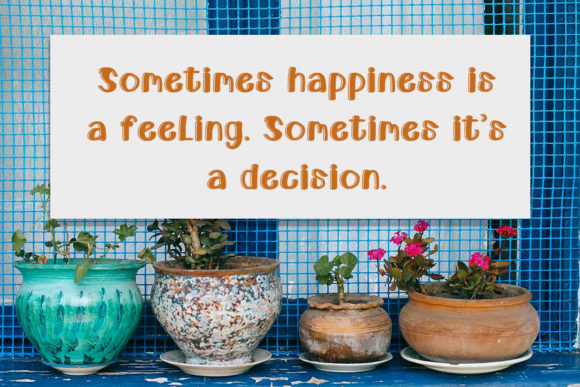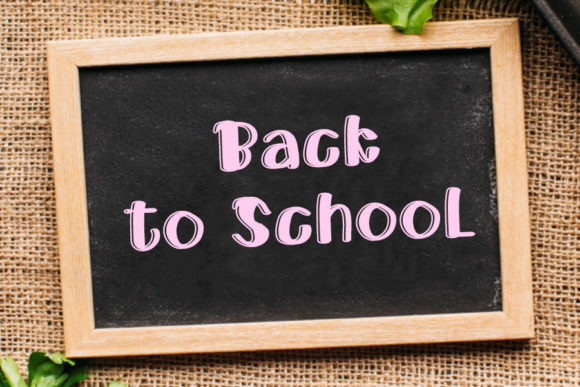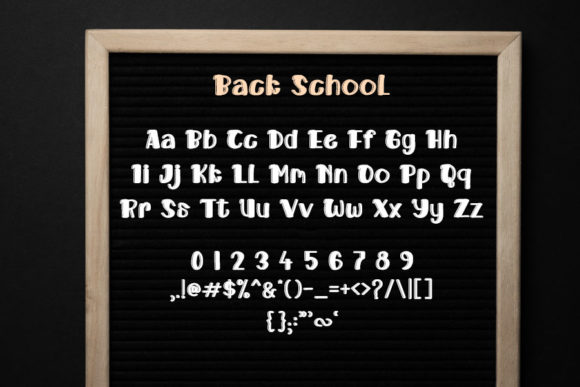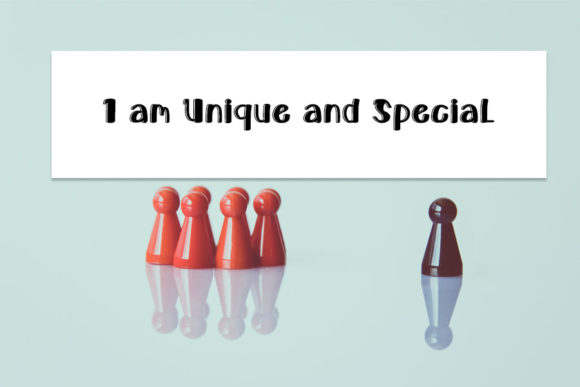
Introducing Back School Font: The Quirky and Sweet Display Font
Are you a designer or crafter looking for a font that adds a touch of whimsy and charm to your creations? Look no further than Back School Font! This incredibly quirky and sweet display font is perfect for cartoon-related designs, children’s games, and any project that requires a lovely touch.
What Makes Back School Font So Special?
Back School Font is a unique and eye-catching font that stands out from the crowd. Its quirky and playful design makes it perfect for projects that require a fun and lighthearted touch. The font’s sweet and charming appearance is sure to delight audiences of all ages, making it an excellent choice for children’s games, cartoons, and other kid-friendly content.
Perfect for Cartoon-Related Designs
Cartoon-related designs require a font that is playful, fun, and engaging. Back School Font fits the bill perfectly. Its quirky design and sweet appearance make it an excellent choice for cartoon characters, logos, and other related designs. Whether you’re creating a cartoon series, a children’s book, or a cartoon-style video, Back School Font is sure to bring your characters to life.
Great for Children’s Games and Activities
Children’s games and activities require a font that is fun, colorful, and engaging. Back School Font is an excellent choice for any project aimed at kids. Its playful design and charming appearance make it perfect for game titles, instructions, and other text elements. Whether you’re creating a puzzle, a coloring book, or an educational game, Back School Font is sure to delight your young audience.
Adding a Lovely Touch to Your Creations
Sometimes, a project just needs a little something extra to make it special. Back School Font is the perfect way to add a lovely touch to your creations. Its sweet and charming appearance makes it an excellent choice for projects that require a personal touch. Whether you’re creating a greeting card, a poster, or a social media graphic, Back School Font is sure to add a touch of whimsy and charm.
Key Features of Back School Font
- Quirky and playful design: Back School Font has a unique and eye-catching design that is sure to stand out.
- Sweet and charming appearance: The font’s sweet and charming appearance makes it perfect for projects that require a lovely touch.
- Perfect for cartoon-related designs: Back School Font is an excellent choice for cartoon characters, logos, and other related designs.
- Great for children’s games and activities: The font’s playful design and charming appearance make it perfect for game titles, instructions, and other text elements.
Back School Font is an incredibly quirky and sweet display font that is perfect for designers and crafters looking to add a touch of whimsy and charm to their creations. Its playful design and charming appearance make it an excellent choice for cartoon-related designs, children’s games, and any project that requires a lovely touch. With its ease of use and versatility, Back School Font is sure to become a favorite in your design arsenal.